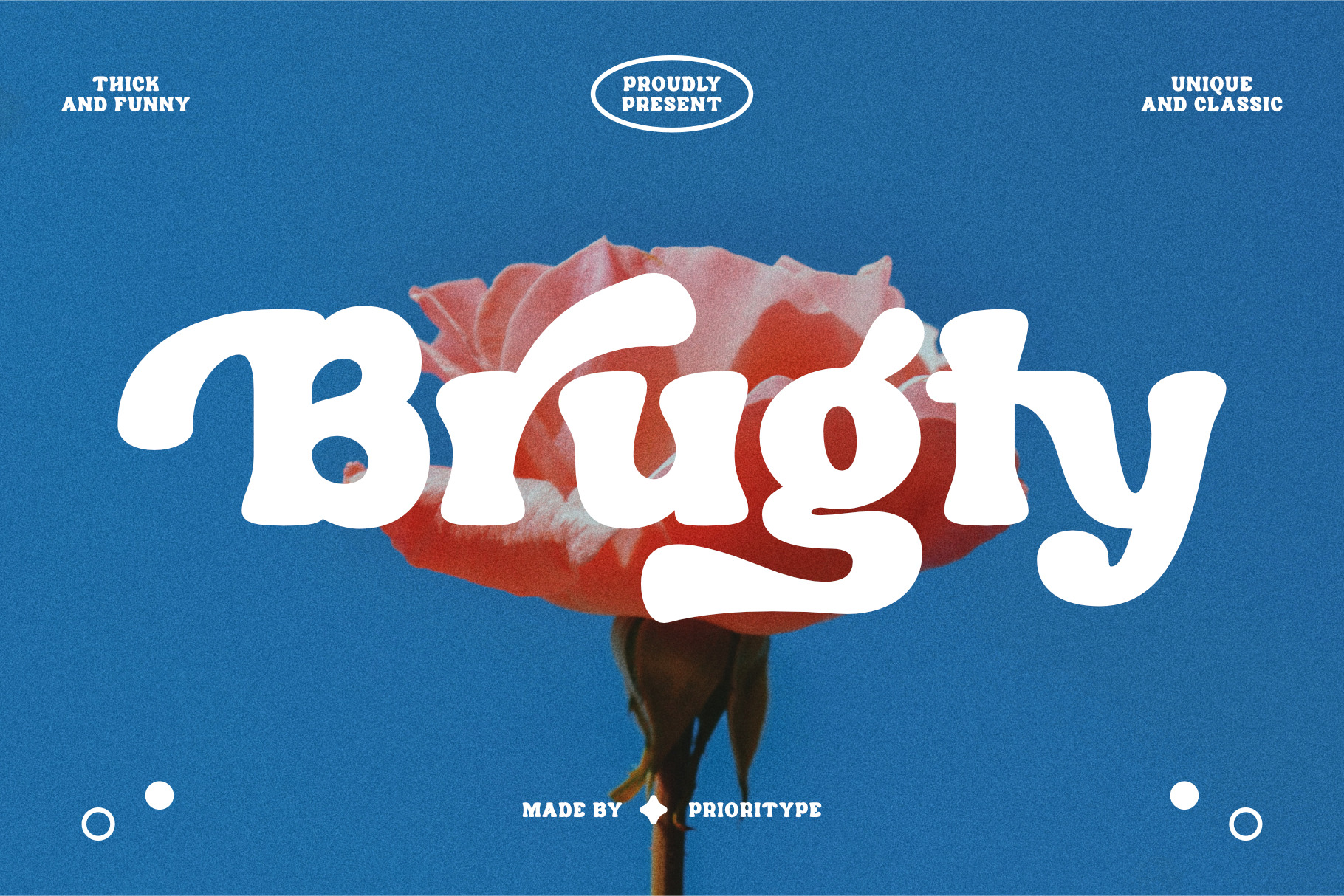
Brugty - Thick Display Fonts
Brugty - Thick and funny fonts with 100+ alternative characters make this font very interesting. In addition, this font also looks unique and classic for a design project.